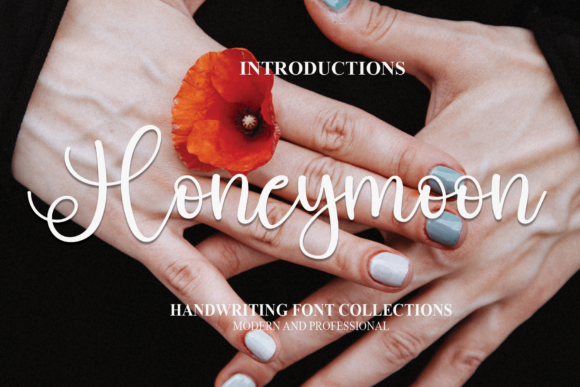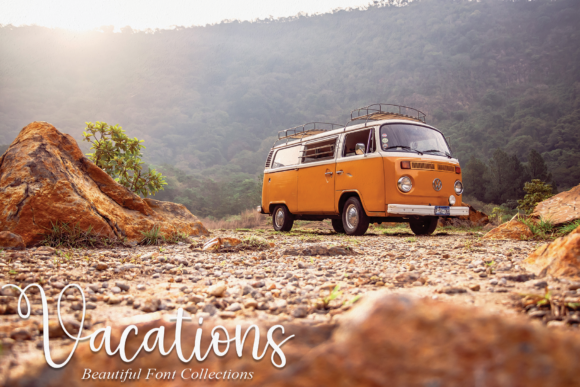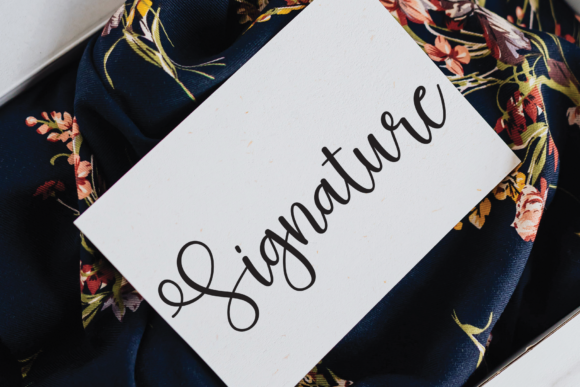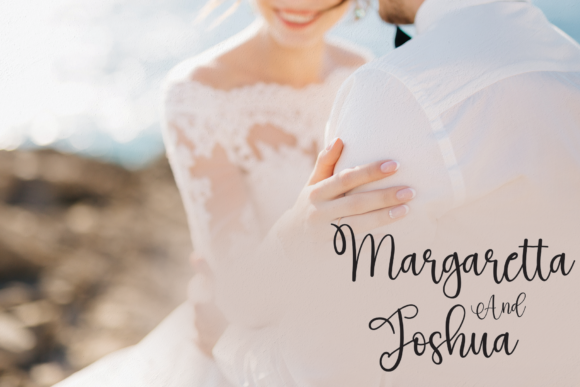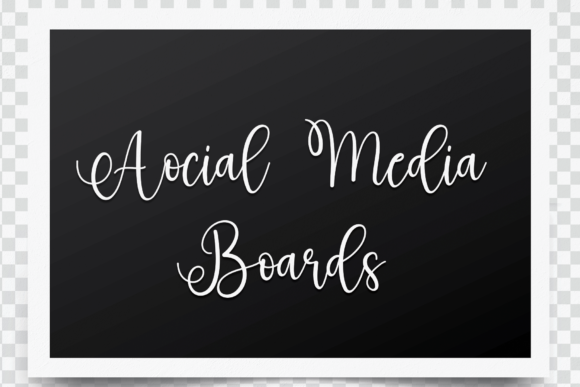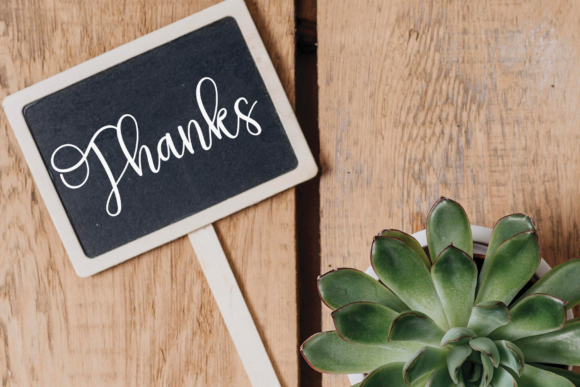
Honeymoon Font
About Honeymoon Font
Honeymoon is a beautiful and chic script font. This gentle font will look gorgeous on a variety of design ideas. It will add a joyful and romantic touch to each of your projects!